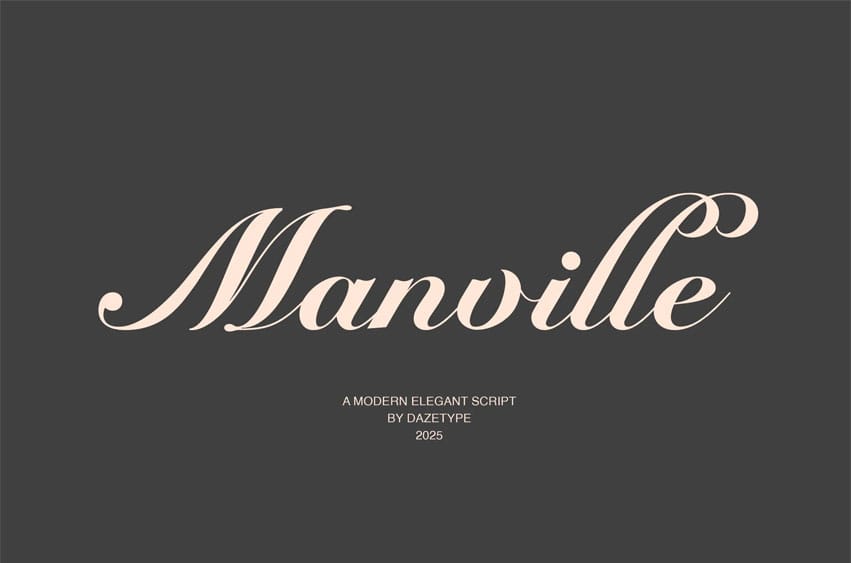
DTS Manville Font is an exclusive formal script font designed by Daze Type Studio, exuding luxury, elegance, and professionalism in every stroke. With its smooth, flowing handwritten style, Manville perfectly blends classic and modern aesthetics, making it ideal for a wide range of creative design needs.
This font is perfect for wedding invitations, high-end branding, editorial magazines, artistic posters, and any design projects that require a sophisticated and prestigious touch. Its delicate details and balanced proportions ensure a clean, readable appearance without compromising on style. Manville elevates your design work to the next level with its strong character and exclusive aura, making it the top choice for professional designers who prioritize quality and visual beauty.